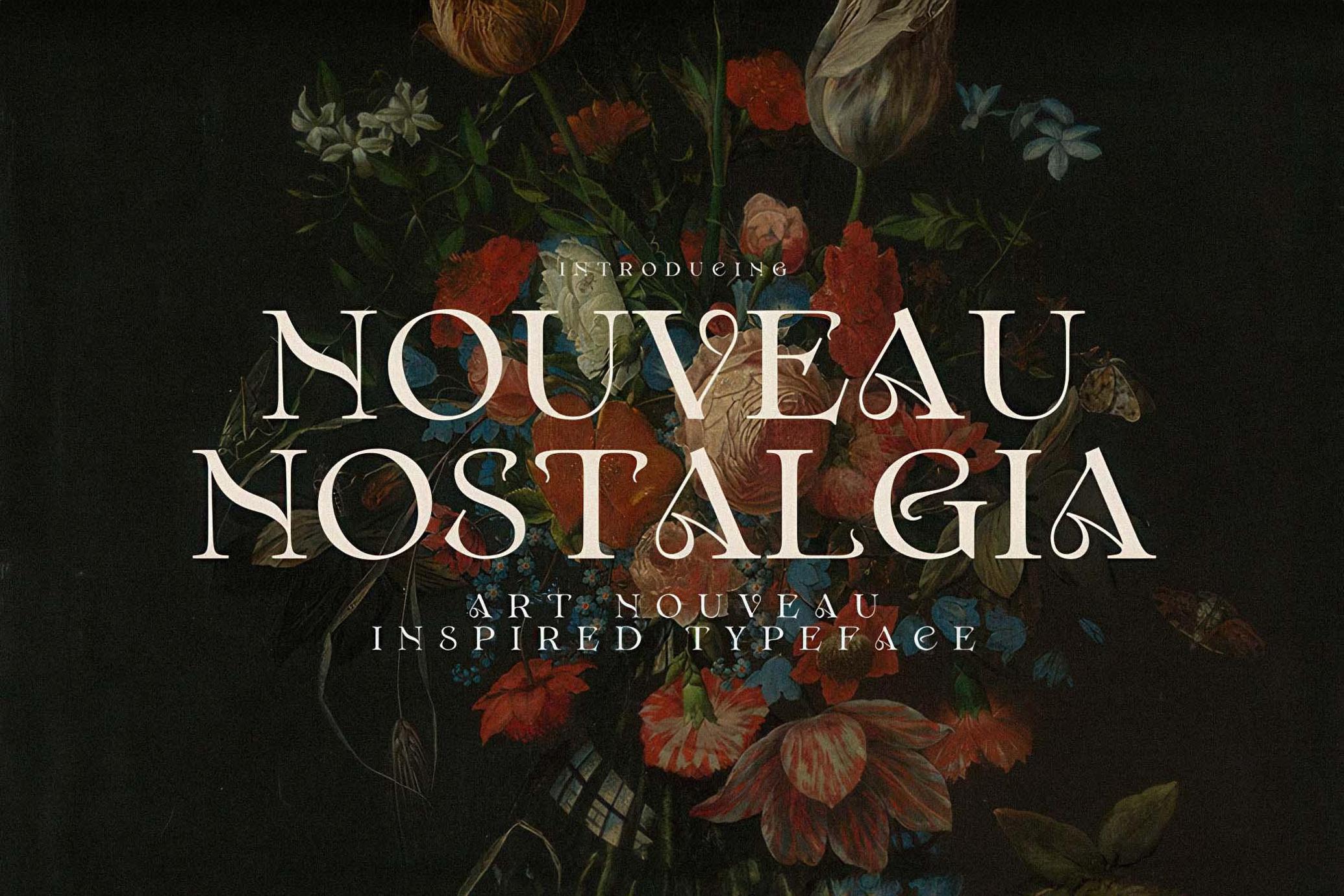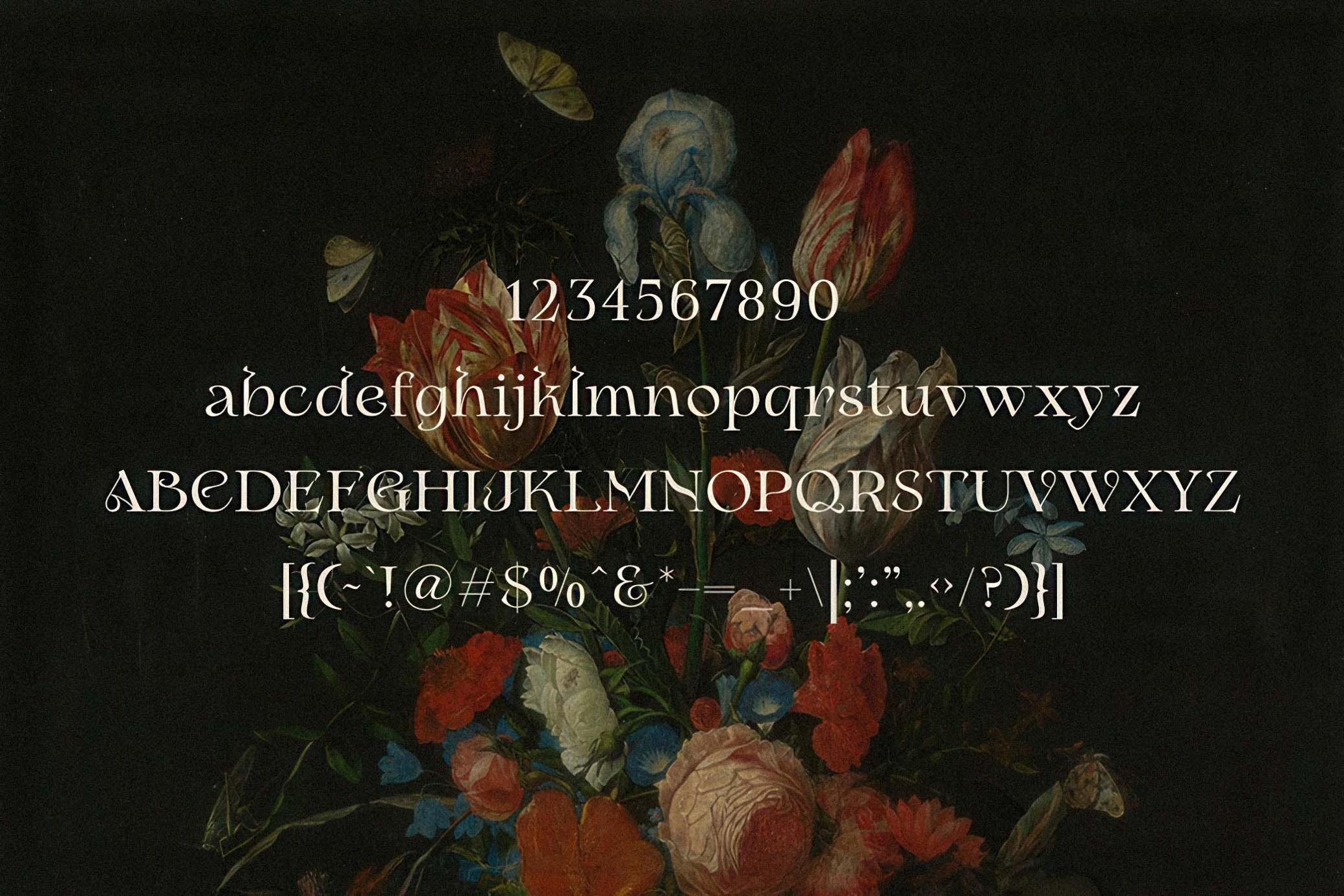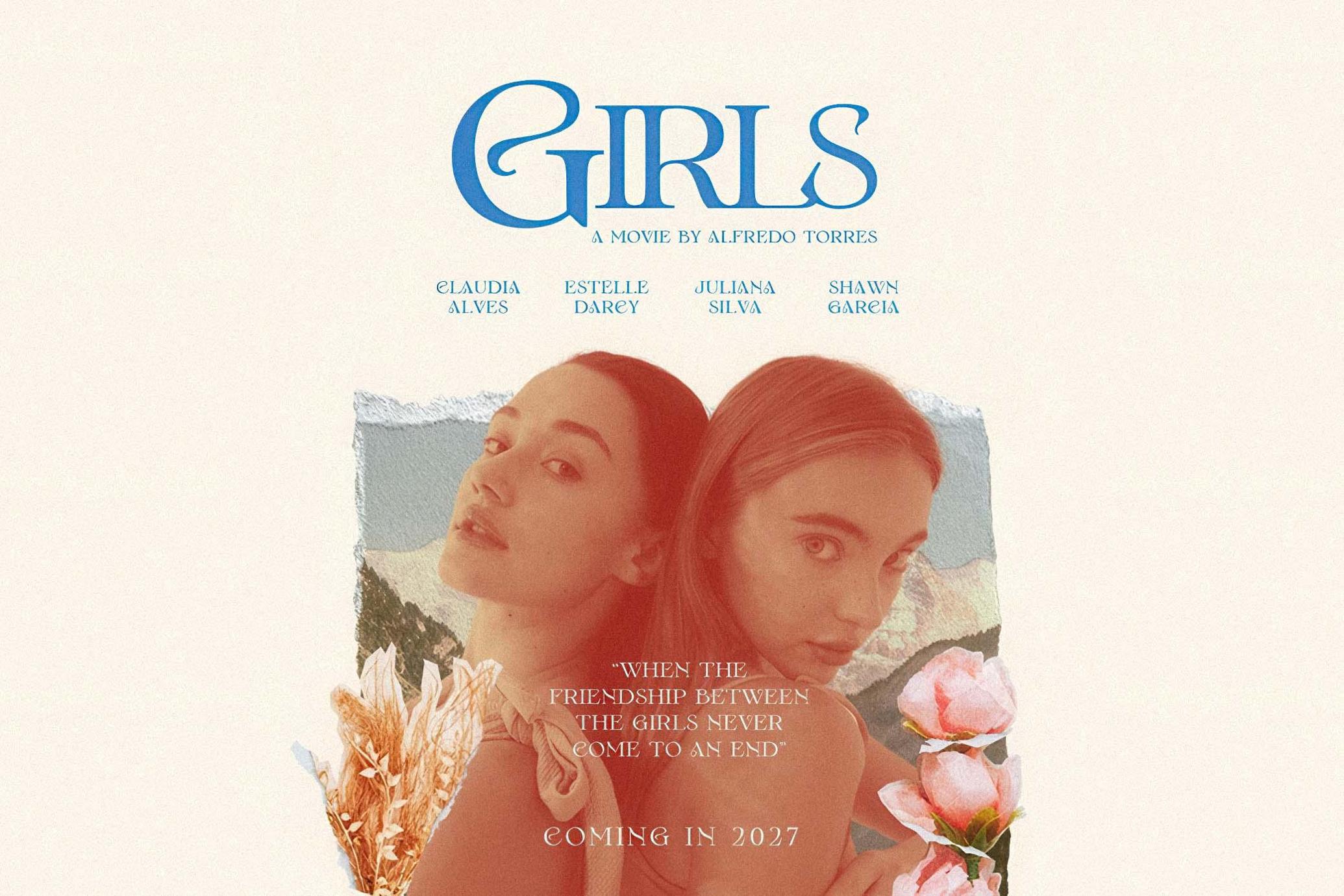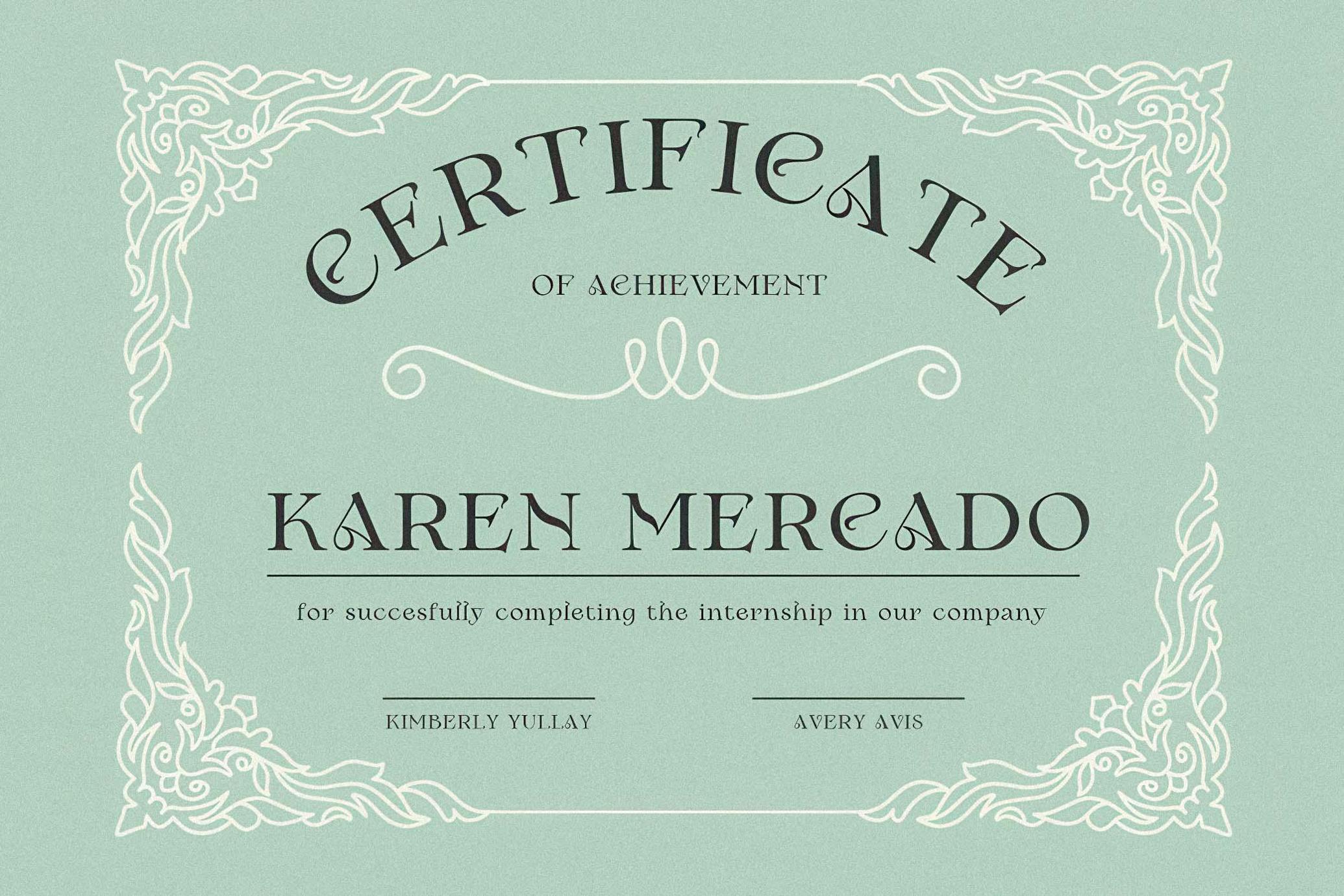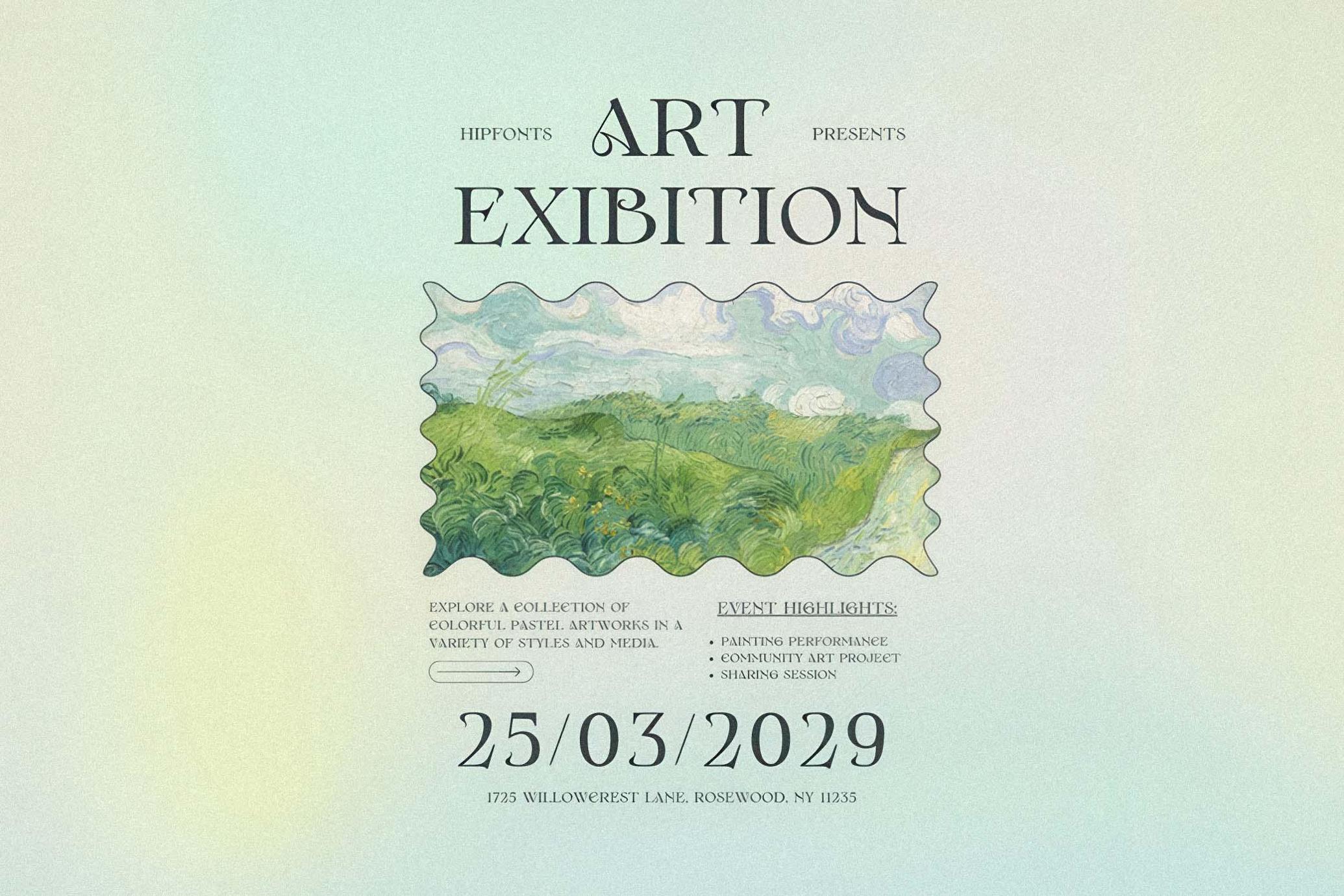
Nouveau Nostalgia – Elegant Typeface
Step into a world of elegance, romance, and vintage charm with Nouveau Nostalgia, a breathtaking typeface inspired by the flowing beauty of the Art Nouveau era. This exquisite font captures the essence of ornate curves, delicate flourishes, and timeless sophistication, making it the perfect choice for projects that demand grace and refinement.
From wedding invitations and certificates to film titles, signage, and vintage-inspired posters, Nouveau Nostalgia brings a touch of old-world grandeur to any design. Whether you’re crafting a romantic brand identity, an elegant menu, or a storybook-worthy design, this typeface elevates your work with its historical charm and artistic finesse.
Indulge in the beauty of a bygone era—Nouveau Nostalgia is more than just a font; it's a statement of timeless artistry.